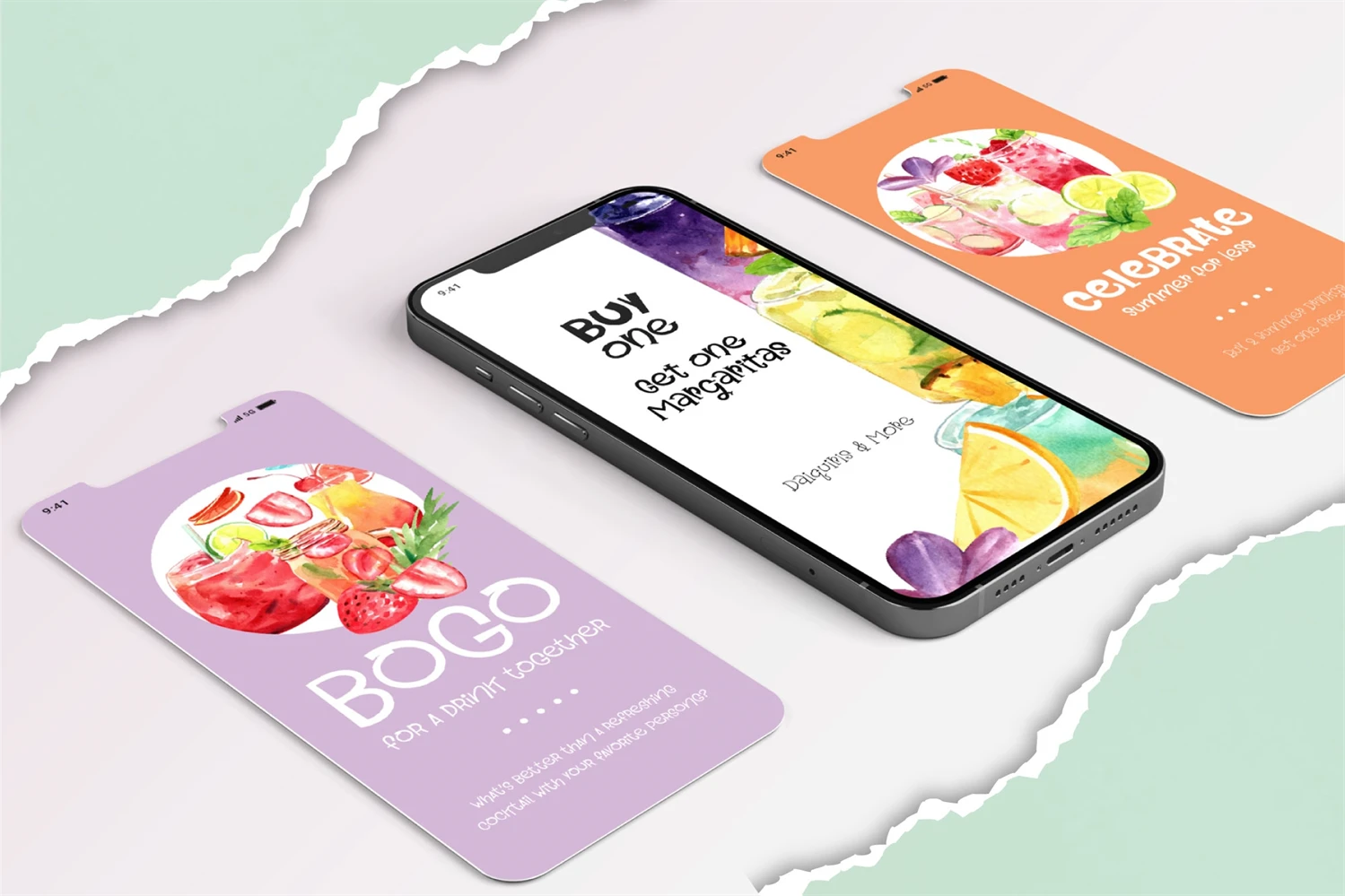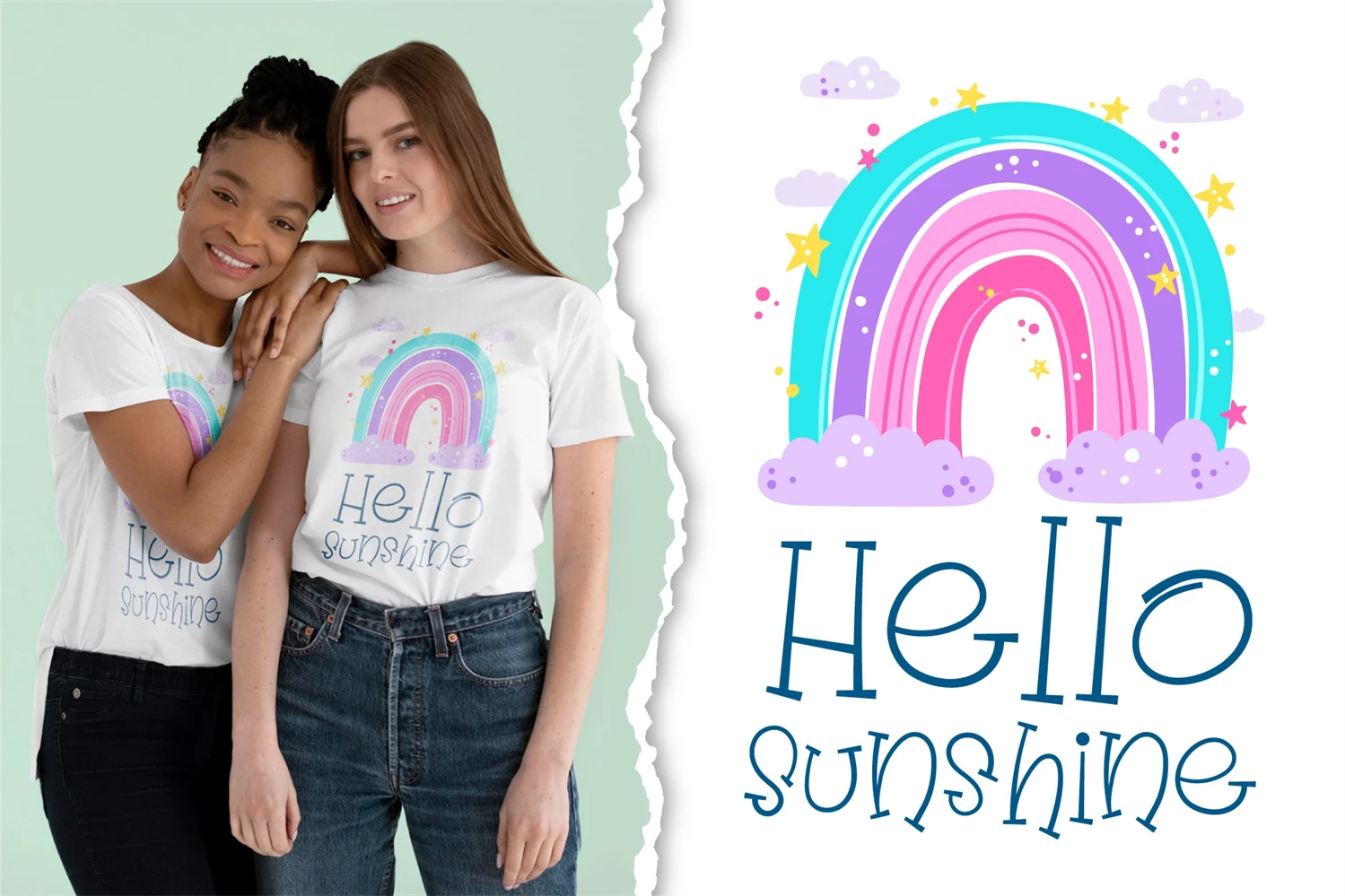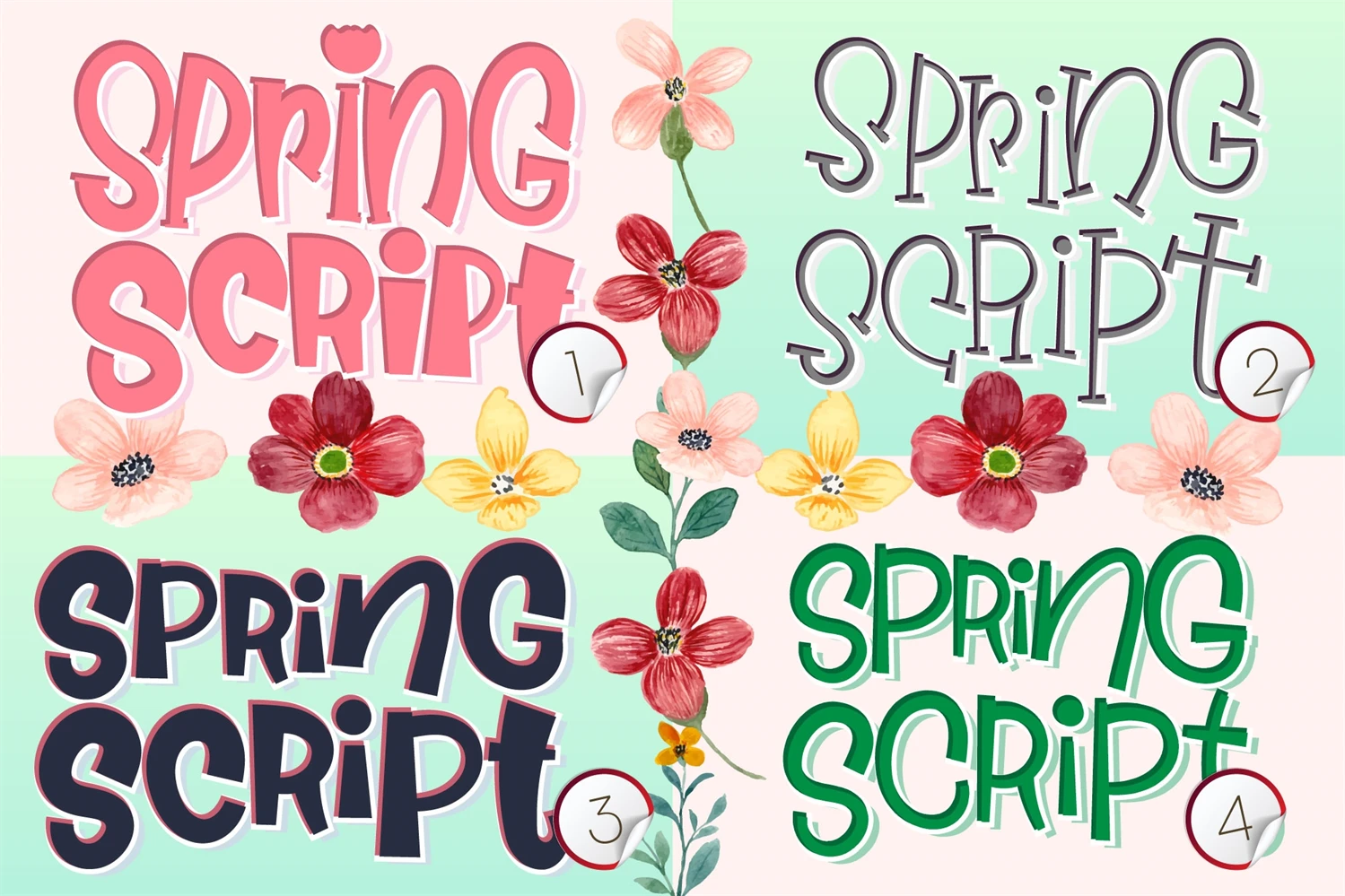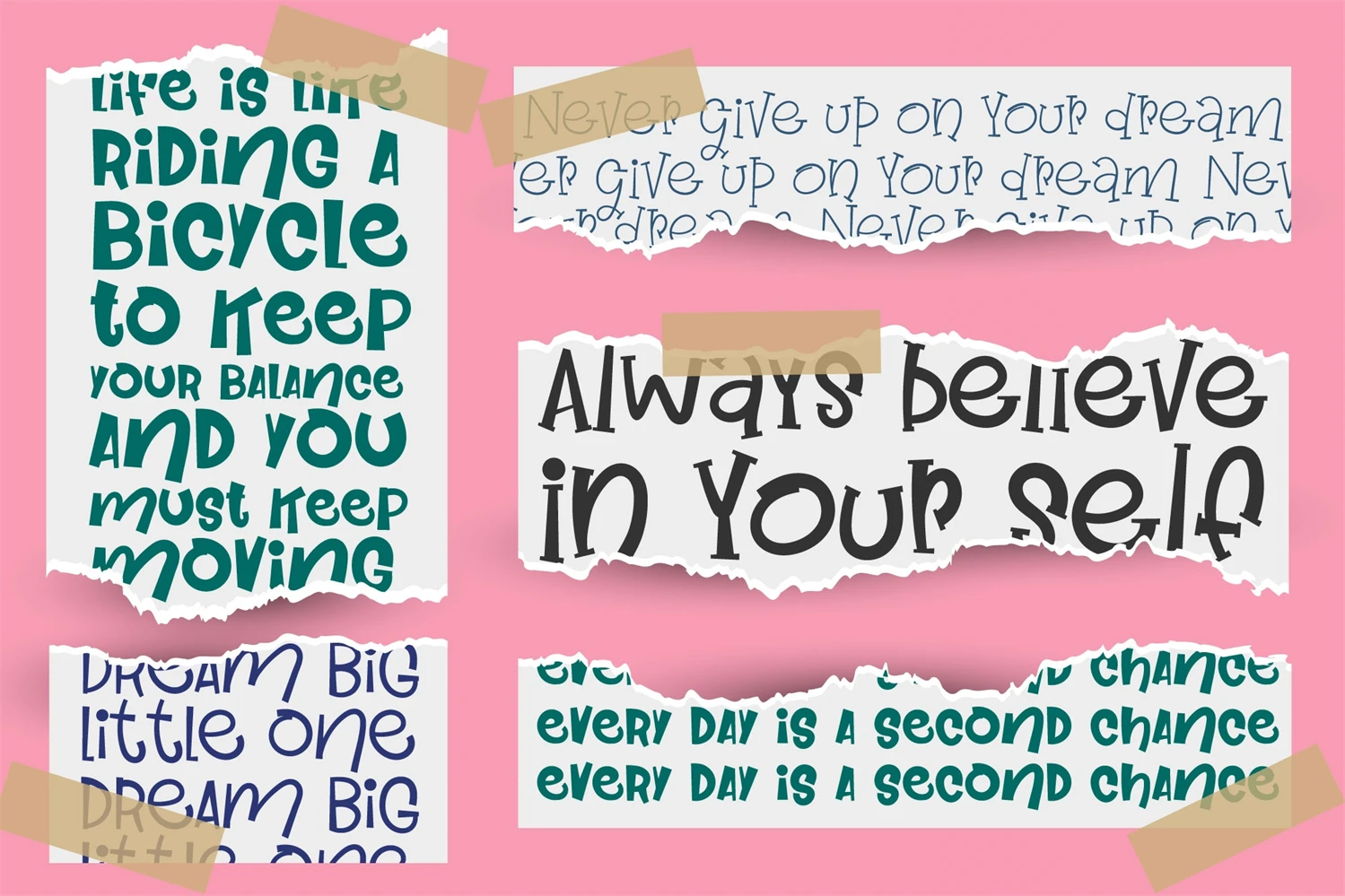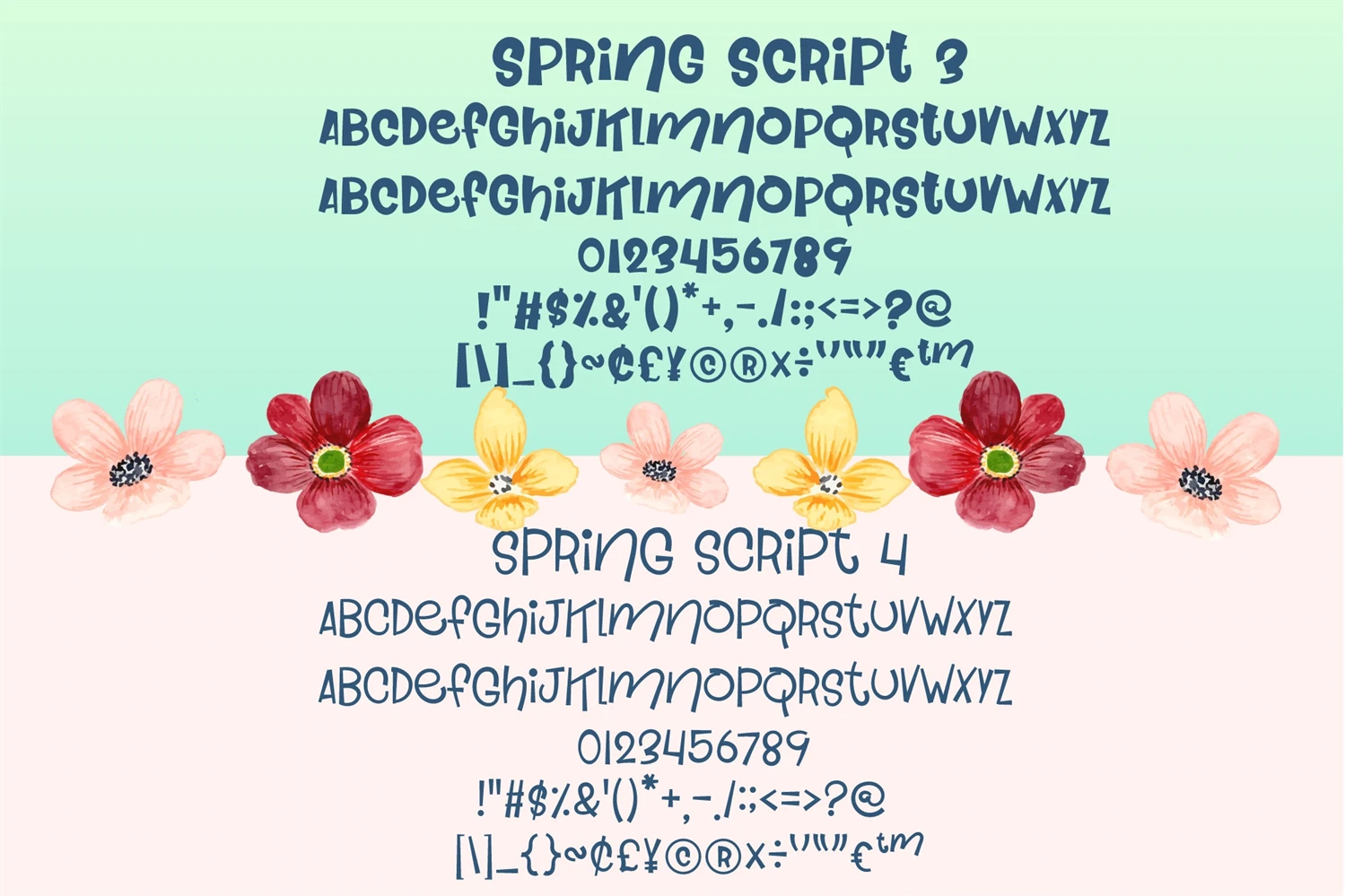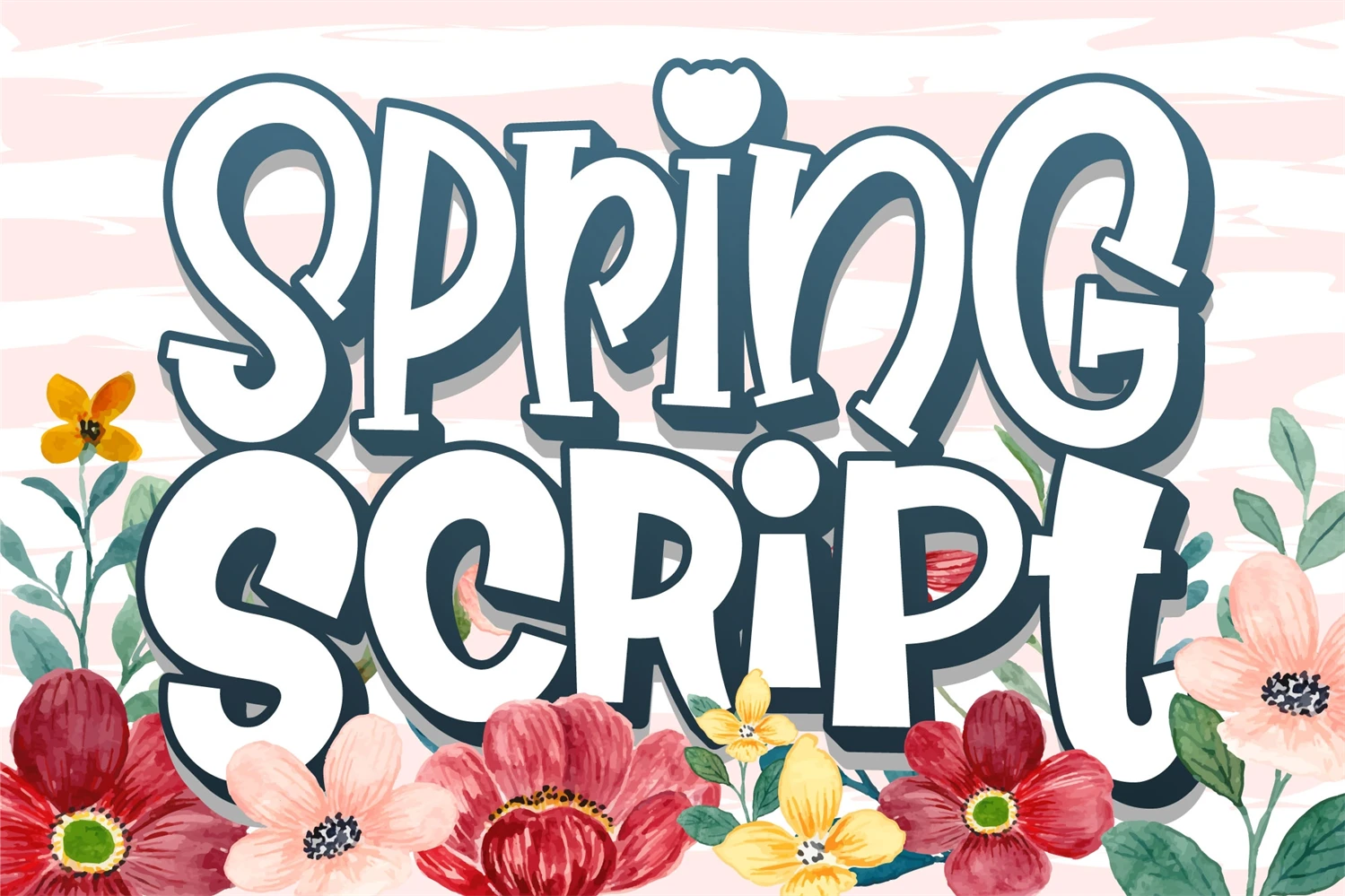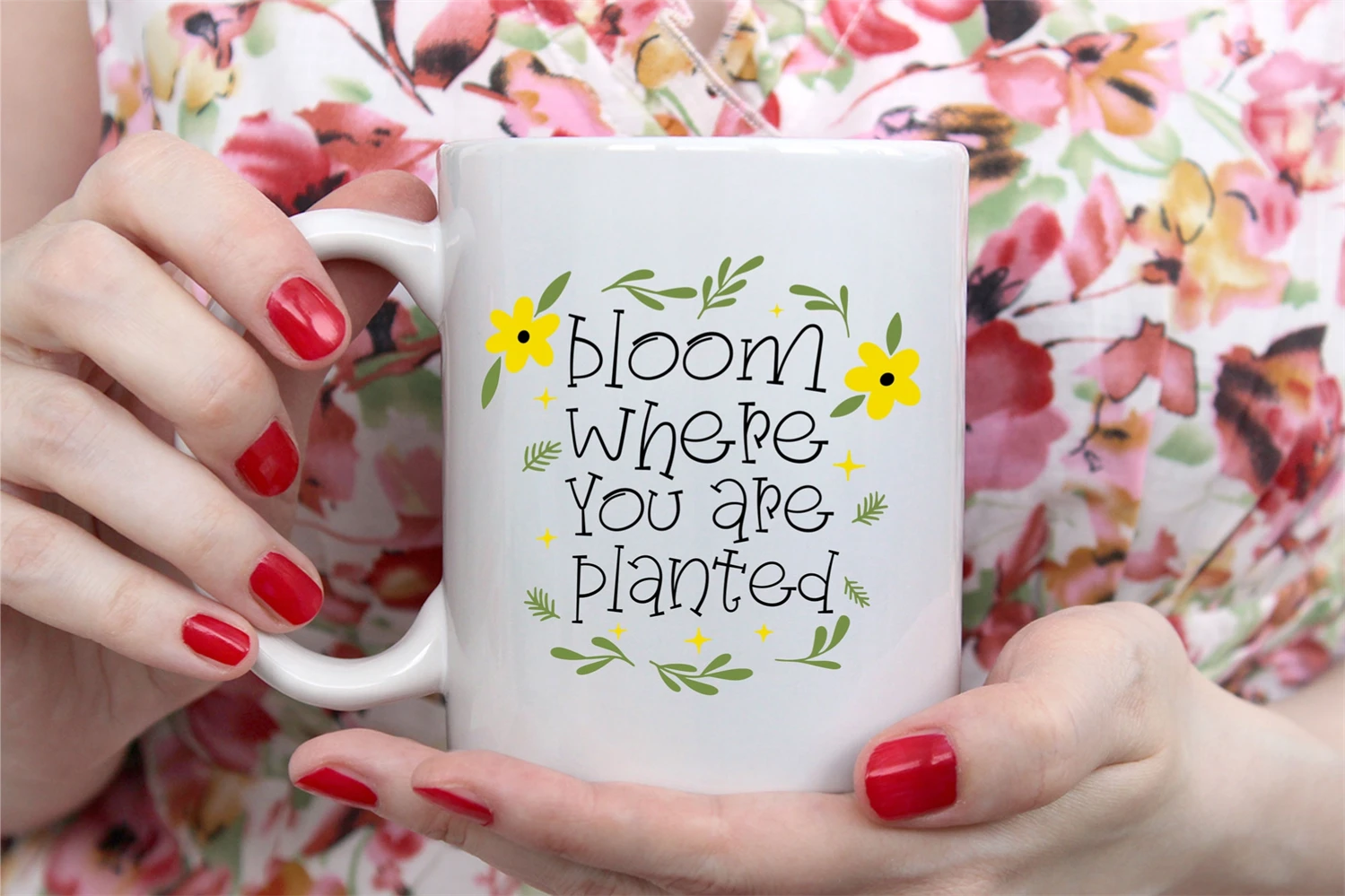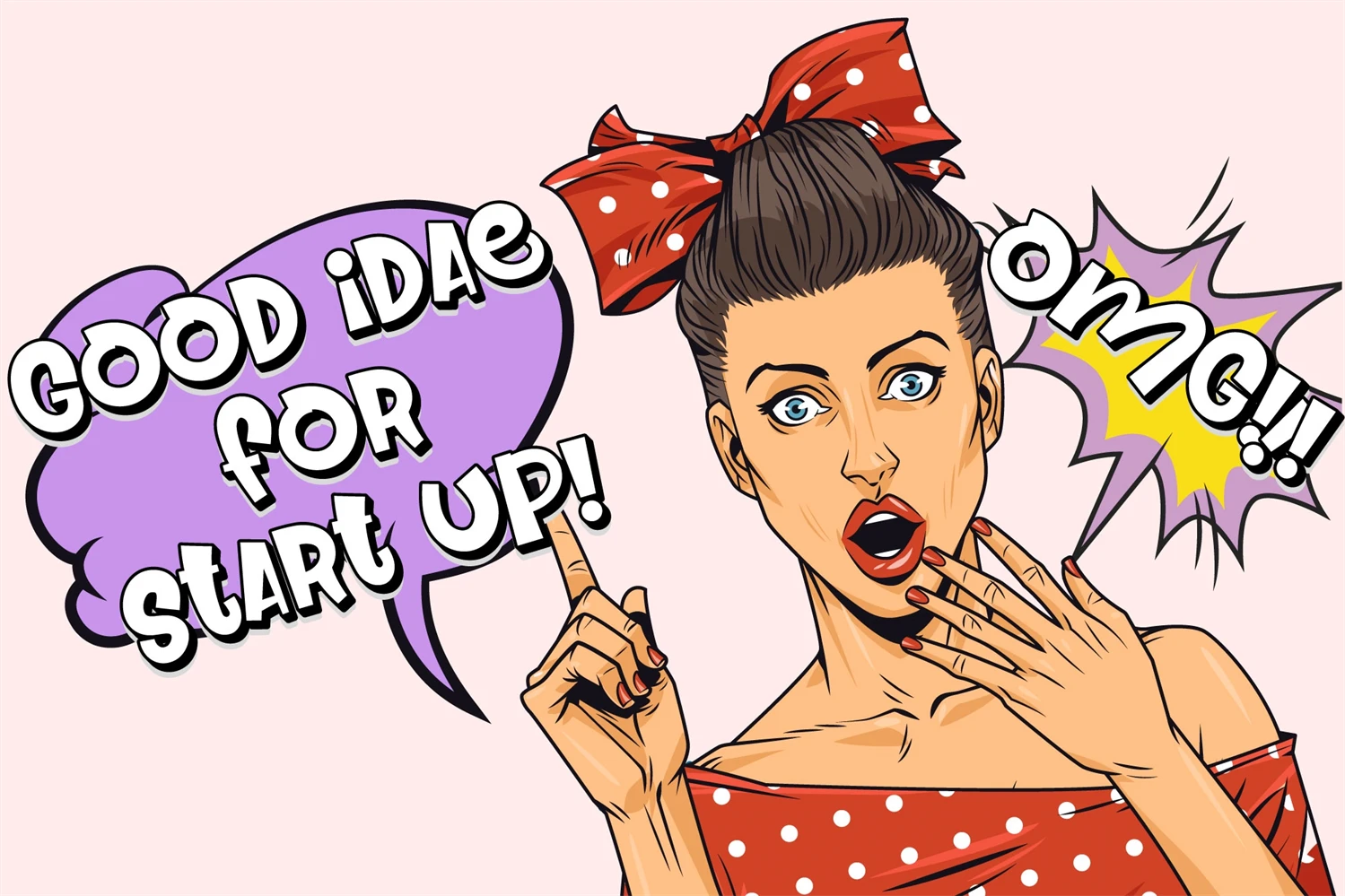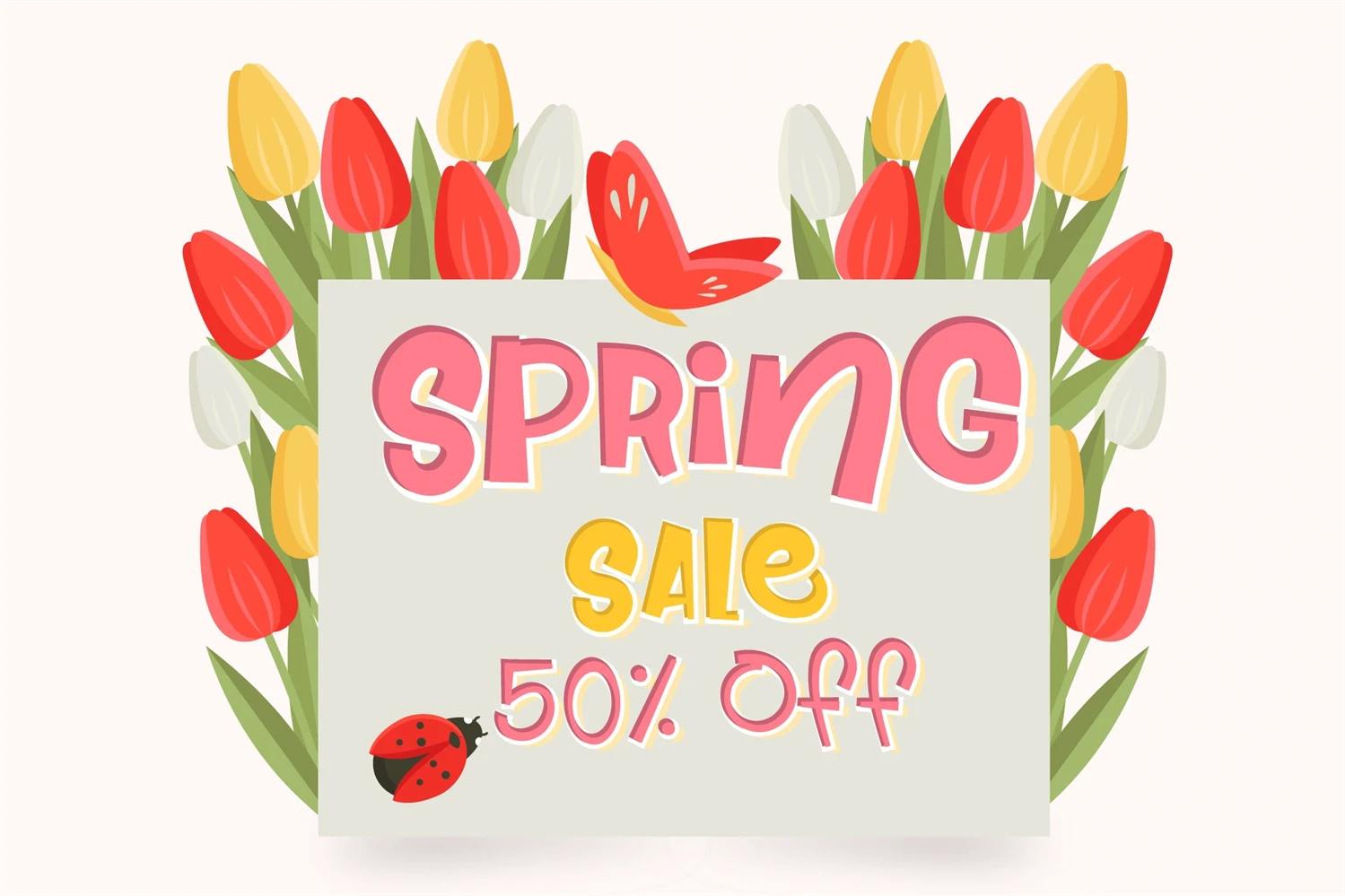
Spring Script Font is a fun, quirky, and informal display font that will bring an extra dose of personality to your projects. With its playful design, this font is perfect for cartoon titles, designs, and subtitles, instantly breathing life into your creations. Spring Script Font adds a touch of whimsy and charm, making it ideal for children's books, greeting cards, invitations, posters, and more. Get ready to unleash your creativity and make your designs stand out with this delightful font.